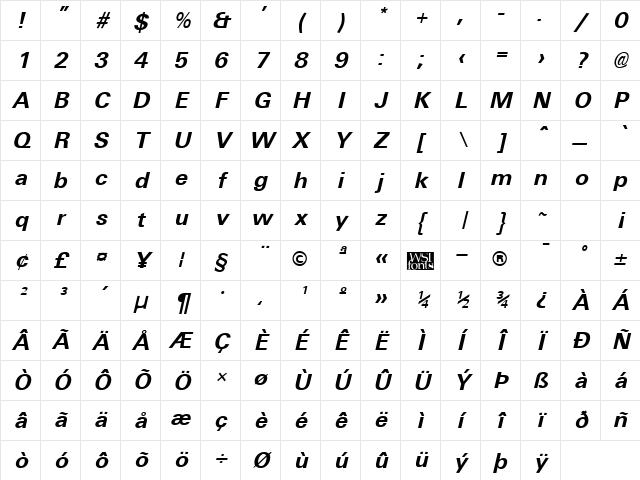
Universal Bold Italic
Design Context for Universal
Universal is a composed and adaptable typeface that performs quietly and consistently across a wide range of design contexts. The slanted form adds forward momentum and visual energy. Its bold stroke weight gives it real presence on the page.
Pro Tip: Use Universal for emphasis, pull quotes, and subheadings where its slanted energy can add rhythm to the layout.